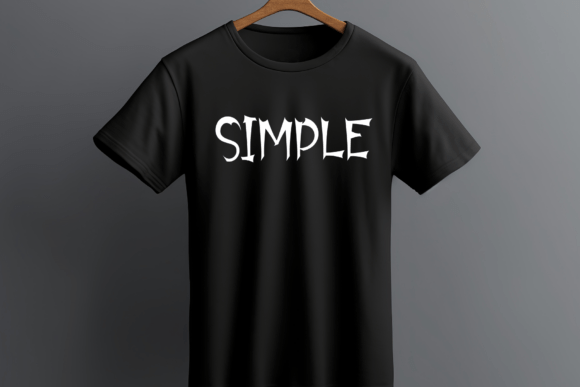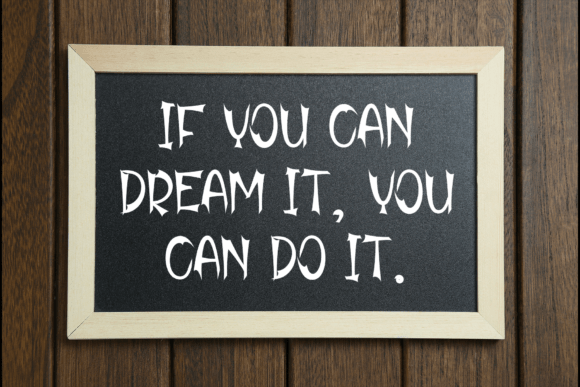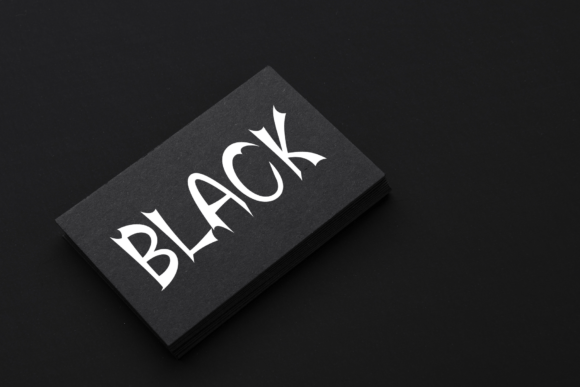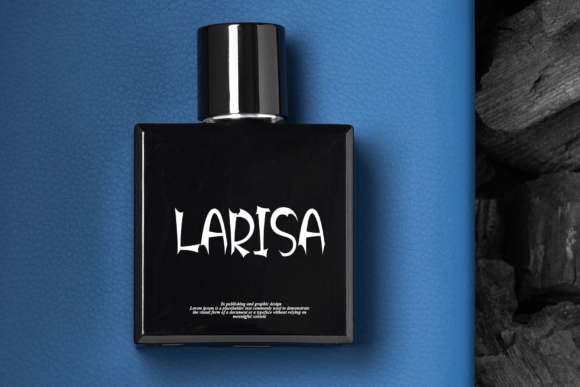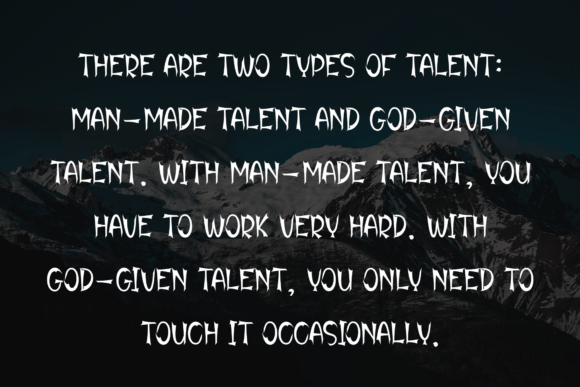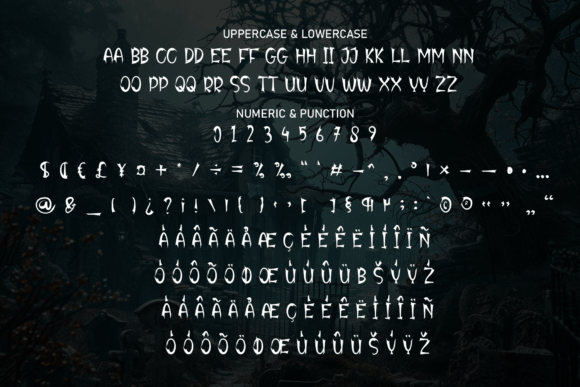
Unveiling the Enchanting Haunted Font: A Perfect Blend of Sweetness and Warmth
Are you a designer or crafter looking for a unique and captivating font to add a touch of personality to your creations? Look no further than the Haunted Font, a handcrafted gem that embodies the perfect blend of sweetness and warmth. This delightful font is sure to cast a spell on your audience, making your designs stand out from the crowd.
The Charm of Handwritten Display Fonts
In a world dominated by digital communication, handwritten display fonts like Haunted Font offer a refreshing respite. With its casual, cutesy allure, this font radiates a convivial vibe that enlivens every text. Its charm and whimsy make it an ideal choice for designers and crafters seeking to add a personal touch to their creations.
Perfect for Personalizing Wedding Invitations and Greeting Cards
One of the most significant advantages of Haunted Font is its versatility. This font works wonders in personalizing wedding invitations, greeting cards, and other special occasion communications. By infusing your designs with a playful energy, Haunted Font transforms ordinary messages into unforgettable moments. Imagine being able to convey your heartfelt sentiments in a way that feels both intimate and celebratory – Haunted Font makes it possible.
Adding a Distinctive Fun Touch to Any Design
Haunted Font is not just limited to wedding invitations and greeting cards. Its playful energy can be applied to a wide range of design projects, from social media graphics to branding materials. Whether you’re a seasoned designer or a crafty DIY enthusiast, this font offers the perfect opportunity to inject a distinctive fun touch into your creations. With Haunted Font, you can:
- Create eye-catching social media graphics that showcase your personality
- Develop a unique brand voice that resonates with your audience
- Design captivating posters, flyers, and brochures that leave a lasting impression
- Enhance your digital products, such as e-books and workbooks, with a personal touch
Key Features of Haunted Font
So, what makes Haunted Font so special? Here are some of its key features:
- Handcrafted with love and care to ensure a unique, organic feel
- Perfect blend of sweetness and warmth, ideal for creating a convivial vibe
- Casual, cutesy allure that works wonders in personalizing designs
- Versatile and adaptable, suitable for a wide range of design projects
- Easy to read and understand, ensuring clear communication
Tips for Using Haunted Font Effectively
To get the most out of Haunted Font, here are some expert tips:
- Pair Haunted Font with complementary fonts to create visual interest
- Experiment with different colors and textures to enhance the font’s playful energy
- Use Haunted Font consistently across your designs to establish a cohesive brand voice
- Don’t be afraid to add embellishments, such as illustrations or graphics, to further personalize your designs
In conclusion, Haunted Font is a captivating and enchanting font that offers a perfect blend of sweetness and warmth. Its handcrafted charm and whimsy make it an ideal choice for designers and crafters seeking to add a personal touch to their creations. With its versatility, adaptability, and playful energy, Haunted Font is sure to become a staple in your design toolkit. So, why wait? Unleash the magic of Haunted Font and transform your designs into unforgettable experiences.